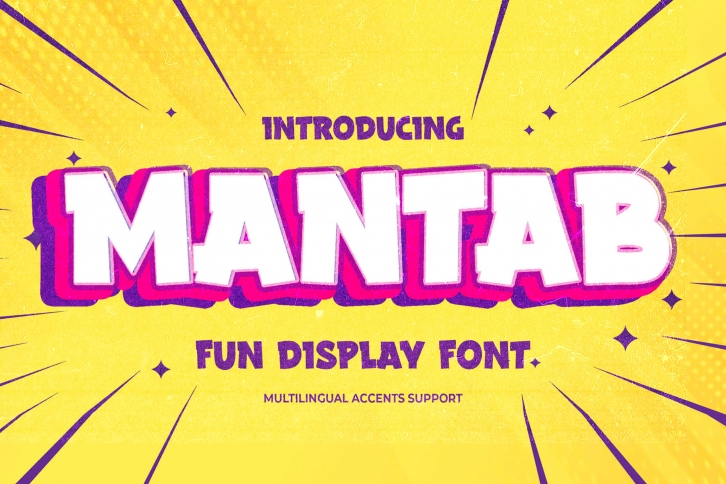
Mantab is a cool, bold and thick lettered display font. It is perfect for any branding project such as logos, t-shirt printing, creative products, and more.